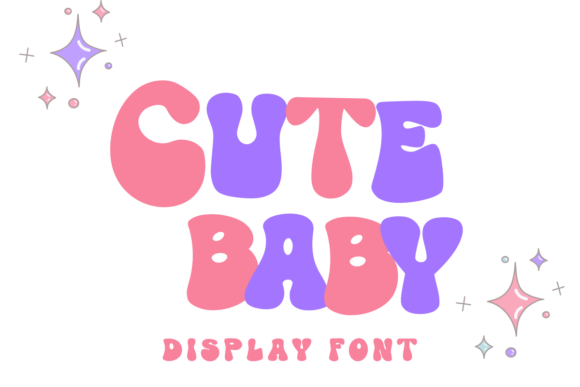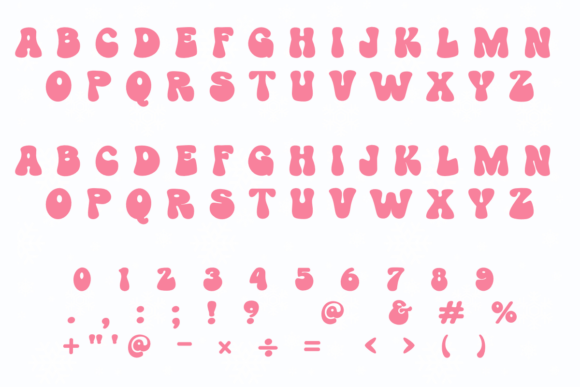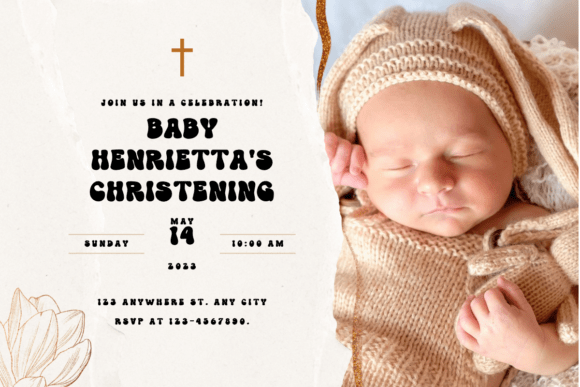
Cute Baby Font
About the Cute Baby Font
Add a touch of class to your work with the Cute Baby Font, a truly exceptional typeface. Cute Baby is a soft and bubbly display font designed to melt hearts! With its plump, rounded shapes and playful charm, this font is perfect for baby shower invites, children’s products, nursery decor, and anything that calls for a dose of adorable. Its fun and whimsical vibe brings a sweet touch to every project.
Cute Baby Font’s soft forms work best in headlines, short titles, and logos for brands targeting young children or emphasizing a gentle, playful aesthetic. It’s ideal for packaging, greeting cards, and social media graphics where a whimsical touch is desired. However, its low x-height and rounded forms make it unsuitable for body text or UI elements requiring high readability.
Pairing Cute Baby with a clean sans-serif like Open Sans for body copy provides excellent contrast and readability. For a more sophisticated feel, consider pairing it with a delicate serif like Lora. Avoid pairing it with other highly decorative fonts, as this can create visual clutter.
The font’s overall personality is undeniably playful and friendly, conveying a sense of warmth and approachability. Its charming qualities make it a strong choice for projects needing a lighthearted and approachable feel.
Cute Baby Font Usage Examples
Cute Baby Font Example